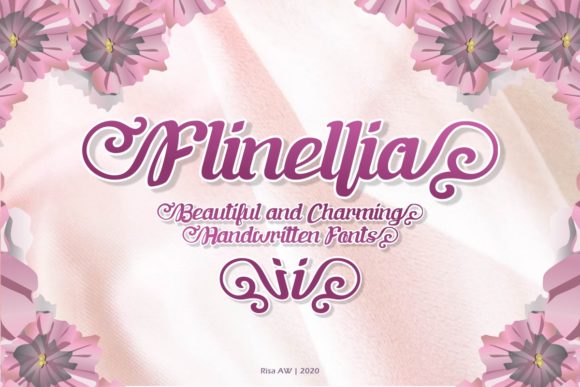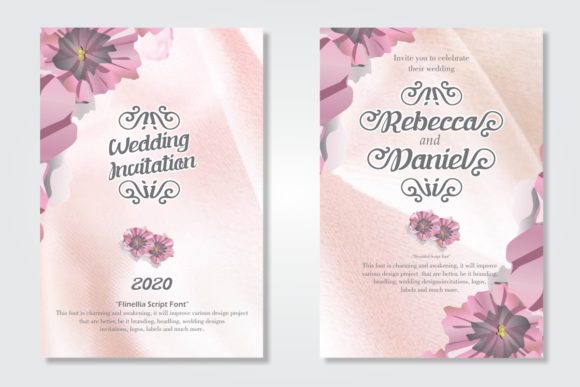
About Flinellia Font
Flinellia feels equally charming and elegant. Whether you’re looking for fonts for Instagram or calligraphy scripts for DIY projects, this handwritten font will turn any creative idea into a true piece of art!